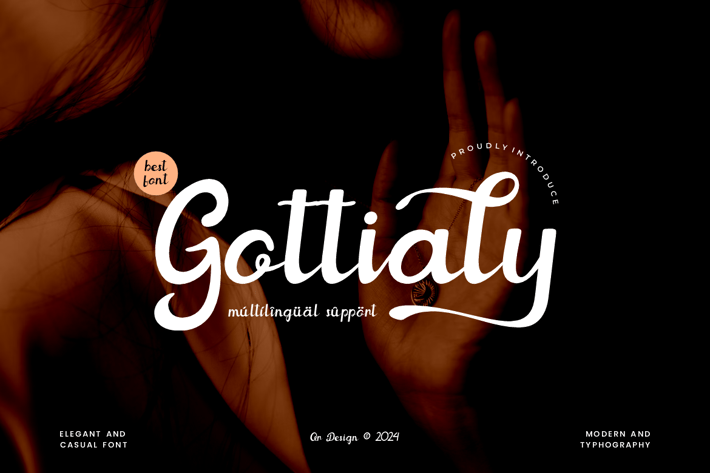
Gottialy - Elegant & Typography Font
Gottialy Font is a elegant and minimal logo font.
The font is suitable for any branding project like stylish, poster, logo, and many more.
+ Uppercase & Lowercase
+ Ligatures & Alternate
+ Numeral & Punctuations
+ Multilingual Support
+ Extended Character Set